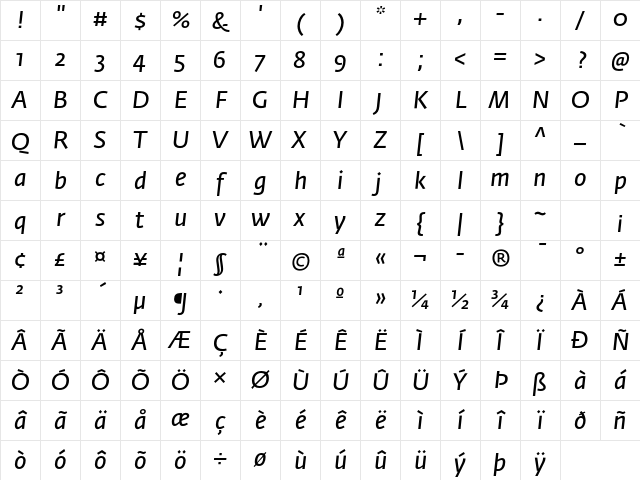
Fedra Sans Std Normal Italic
Style: Normal Italic
Foundry: Peter Bilak (www.typotheque.com)
Designer: Peter Bilak (www.typotheque.com)
Design Context for Fedra Sans Std
Fedra Sans Std is a composed and adaptable typeface that performs quietly and consistently across a wide range of design contexts. The slanted form adds forward momentum and visual energy.
Pro Tip: Use Fedra Sans Std for emphasis, pull quotes, and subheadings where its slanted energy can add rhythm to the layout.